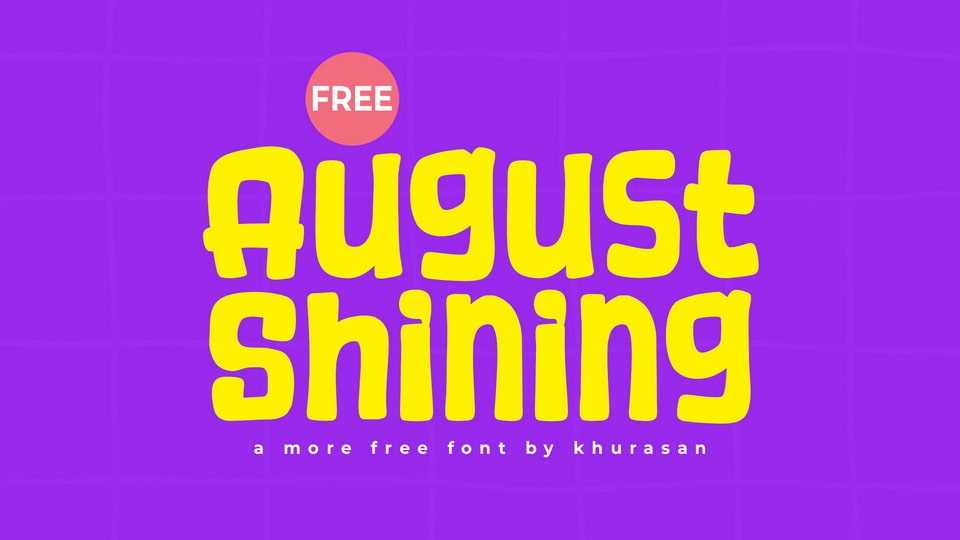
Download August Shining font, a fun, bubbly typeface with a touch of whimsy. Its rounded shapes and cheerful vibe give it a friendly, approachable feel.